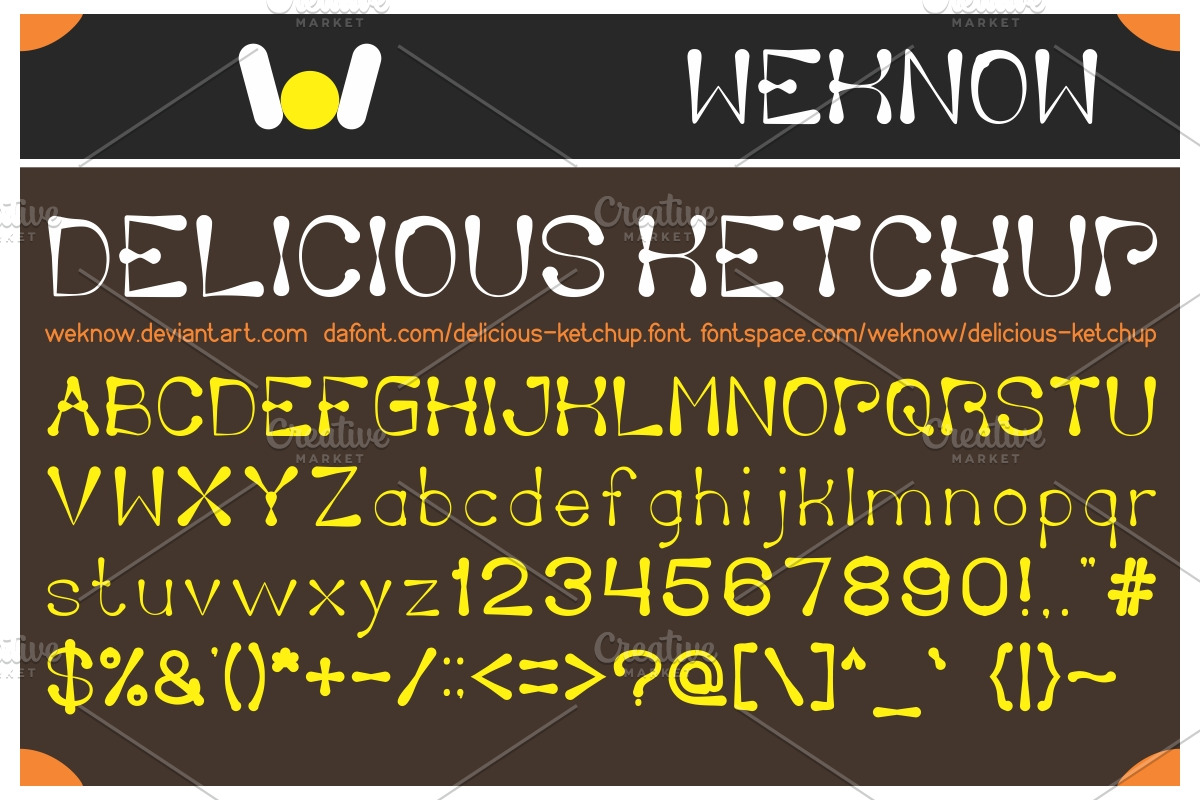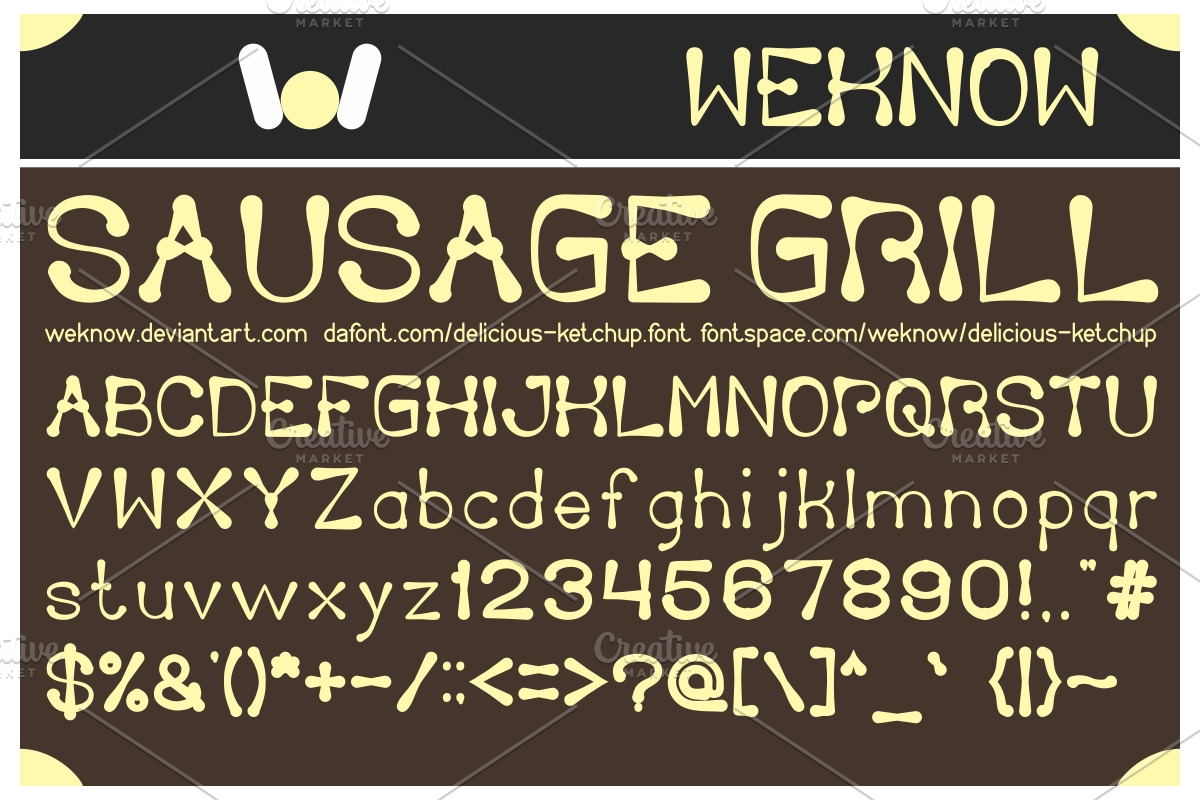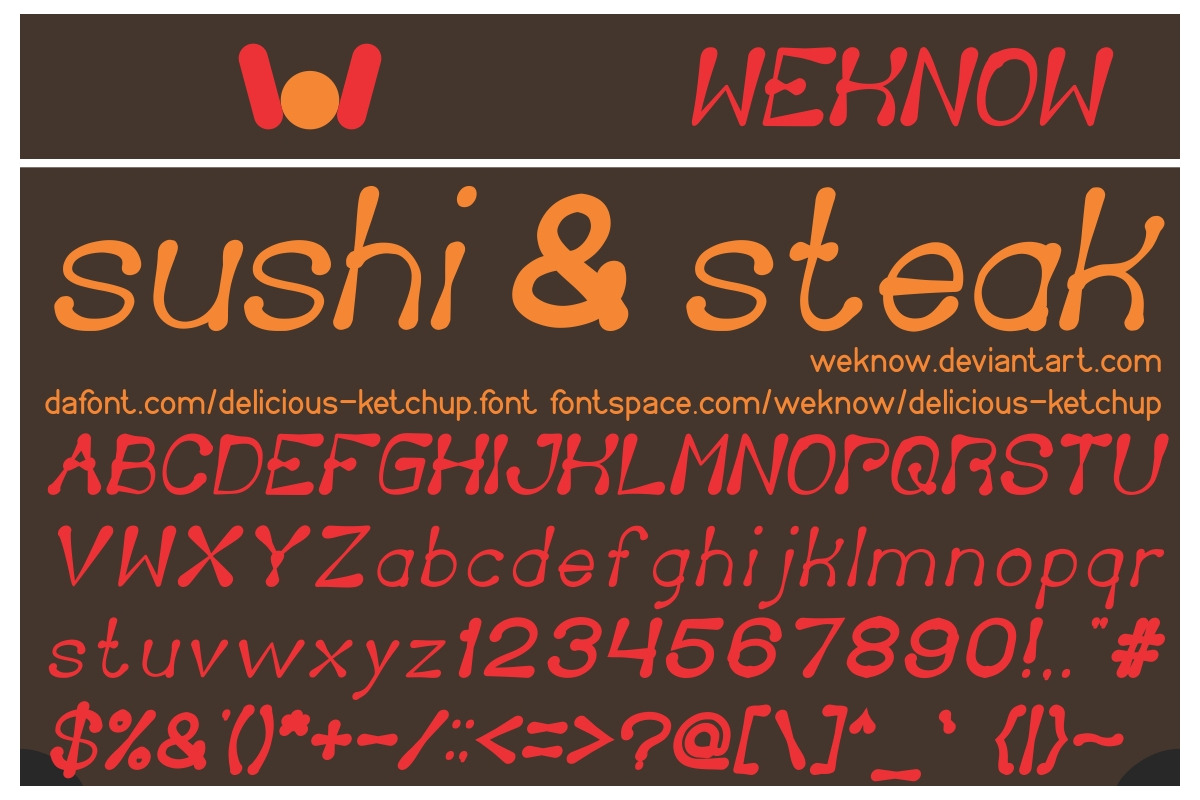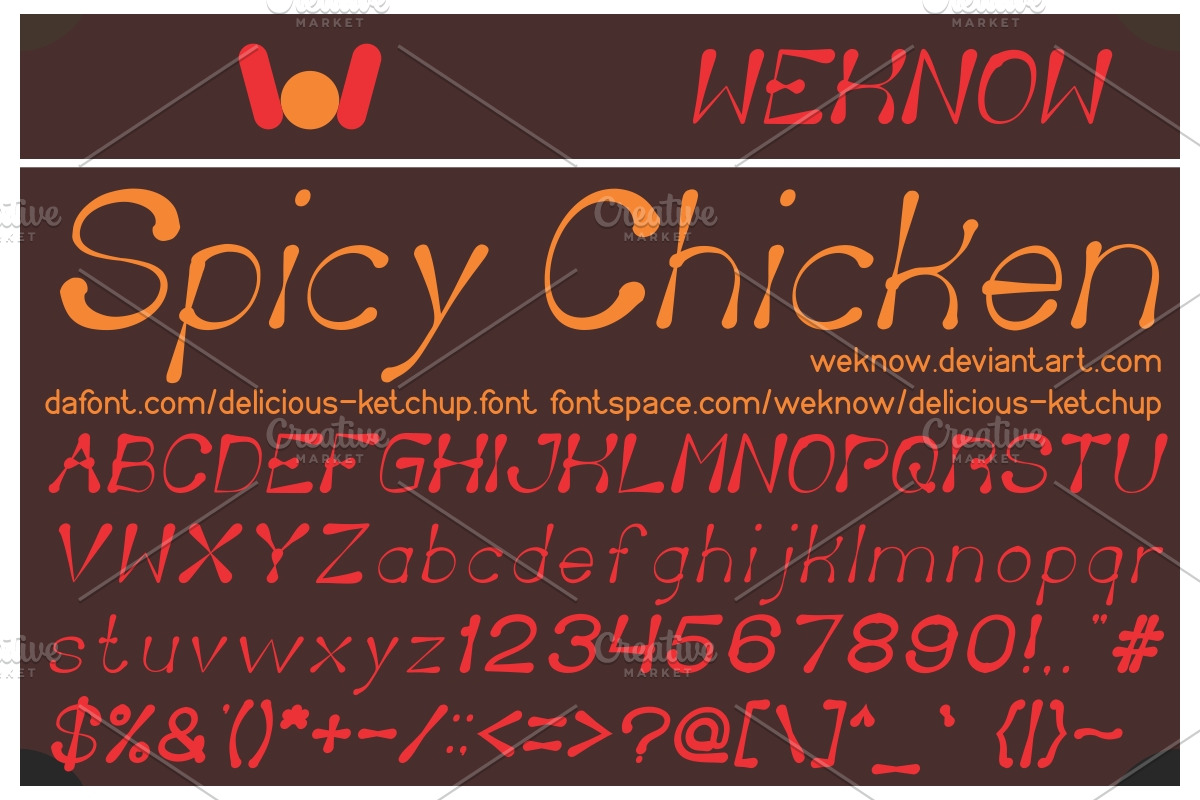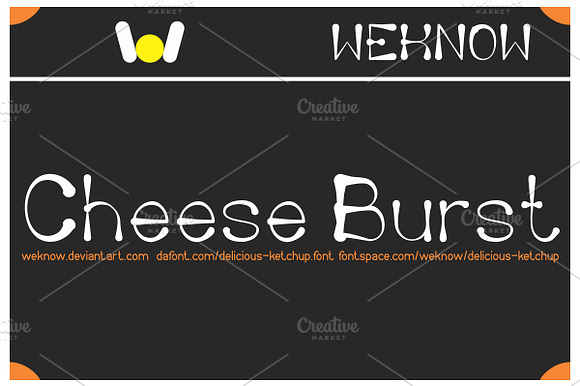
delicious ketchup font
available style: Delicious Ketchup-Bold, Delicious Ketchup-Bold-Italic, Delicious Ketchup-Italic
Why delicious ketchup font is worth a look
delicious ketchup font by weknow fits naturally into Branding, posters, packaging, typography.